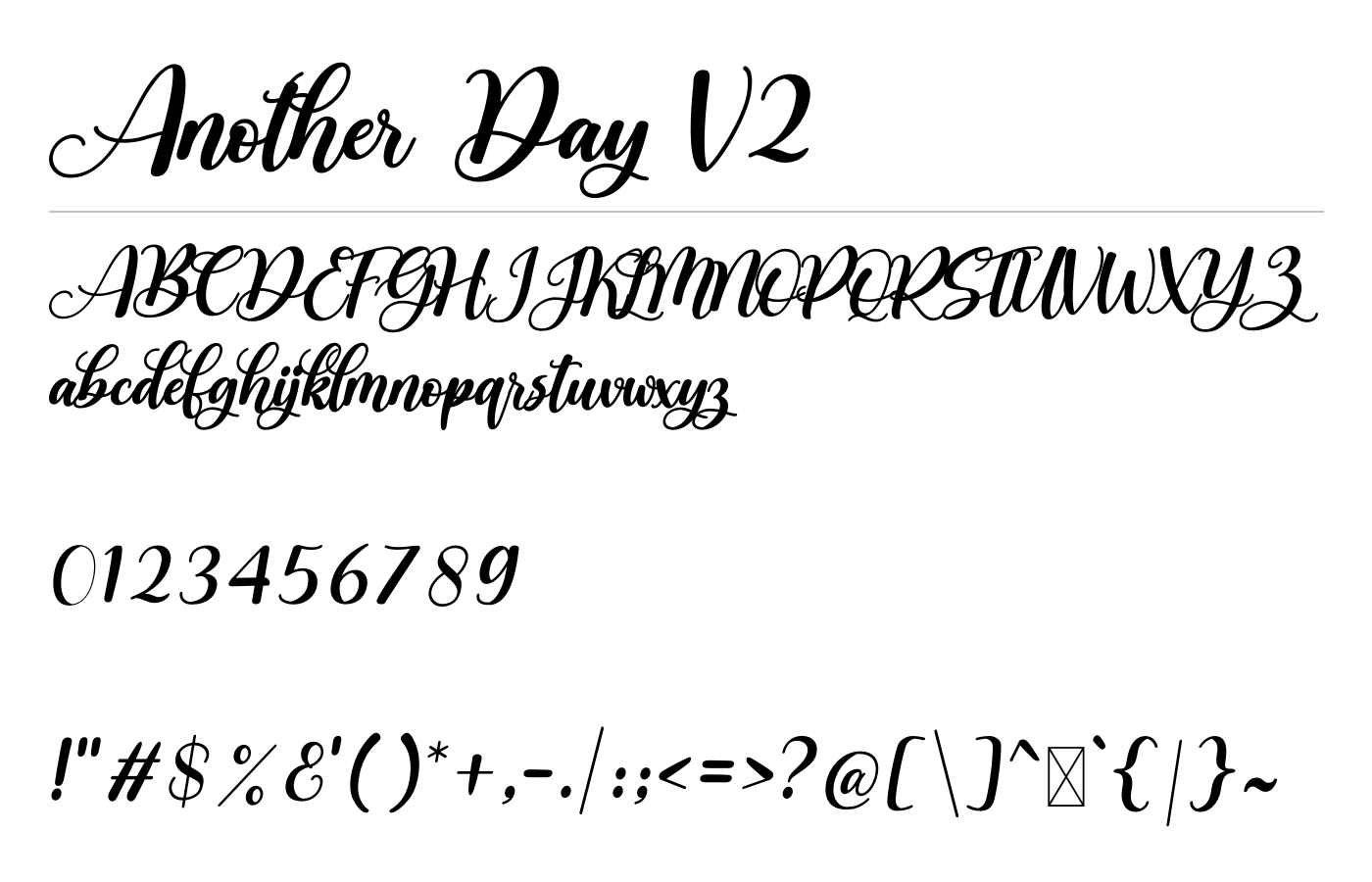
Another Day V2 is an elegant script font featuring flowing, cursive letterforms with a graceful and refined feel. Its moderate contrast and smooth, calligraphic strokes make it perfect for stylish branding, invitations, and feminine designs that seek a touch of sophistication and charm. This font shines in headlines and logos where a handcrafted, luxurious look is desired.
Another Day V2 Font
About Another Day V2 Font
| Font family | Another Day V2 Font |
| Designer | Qara Anass |